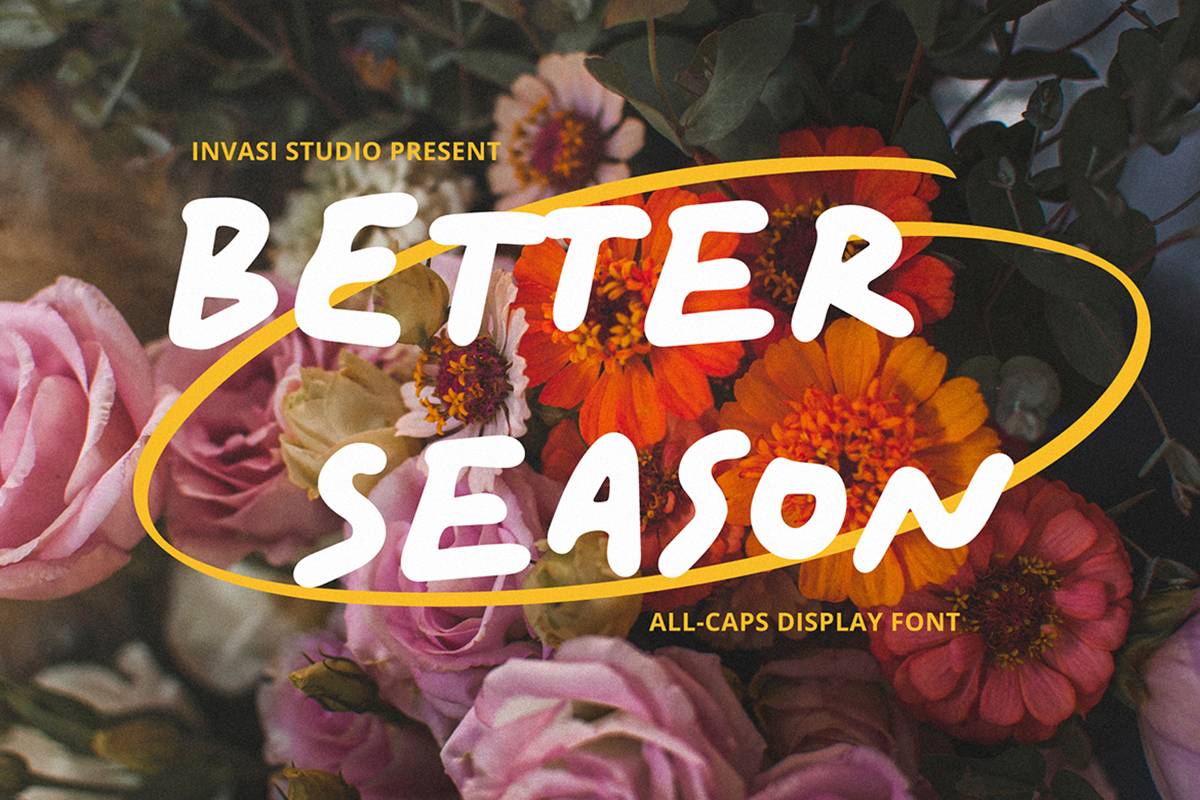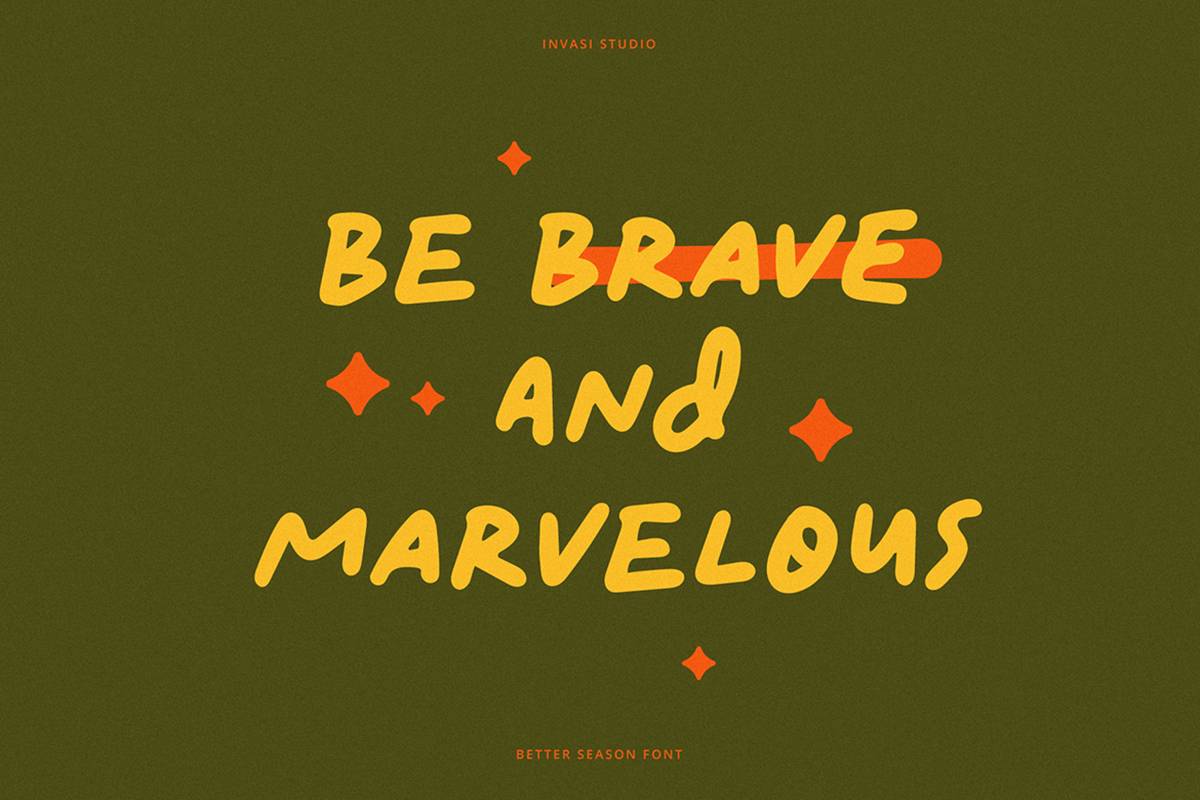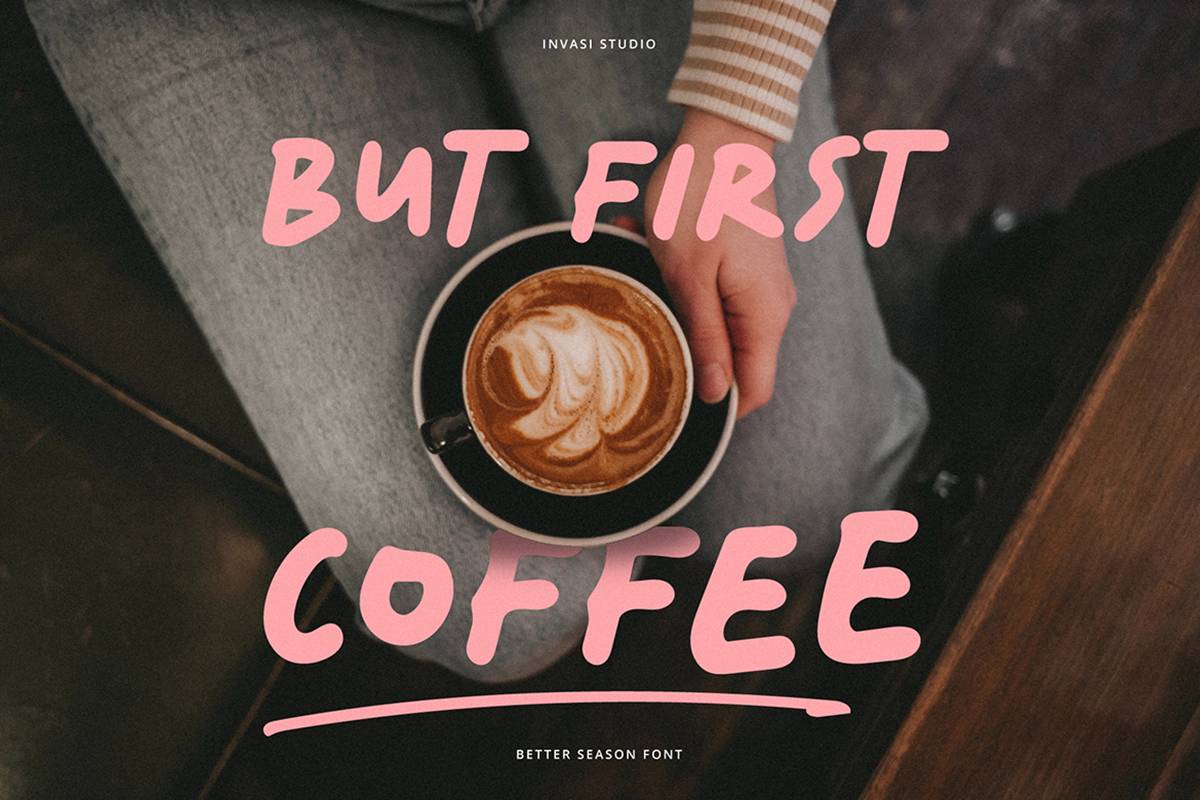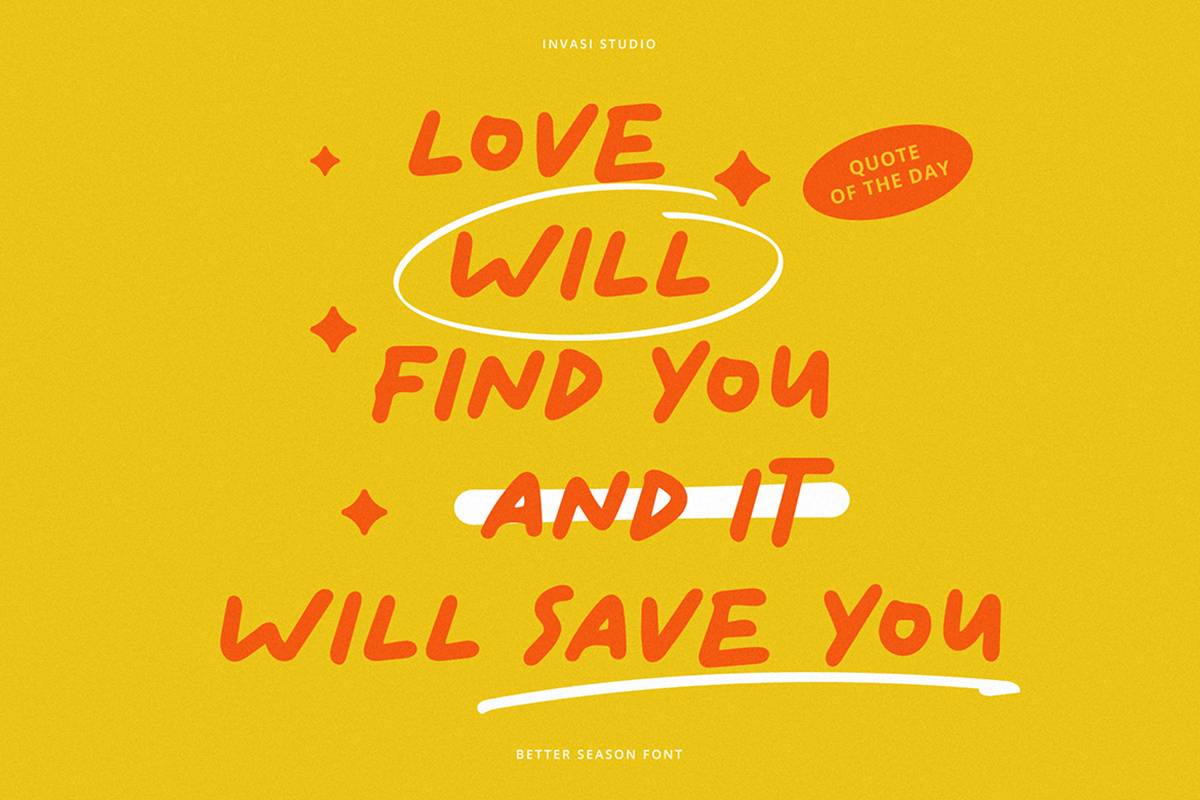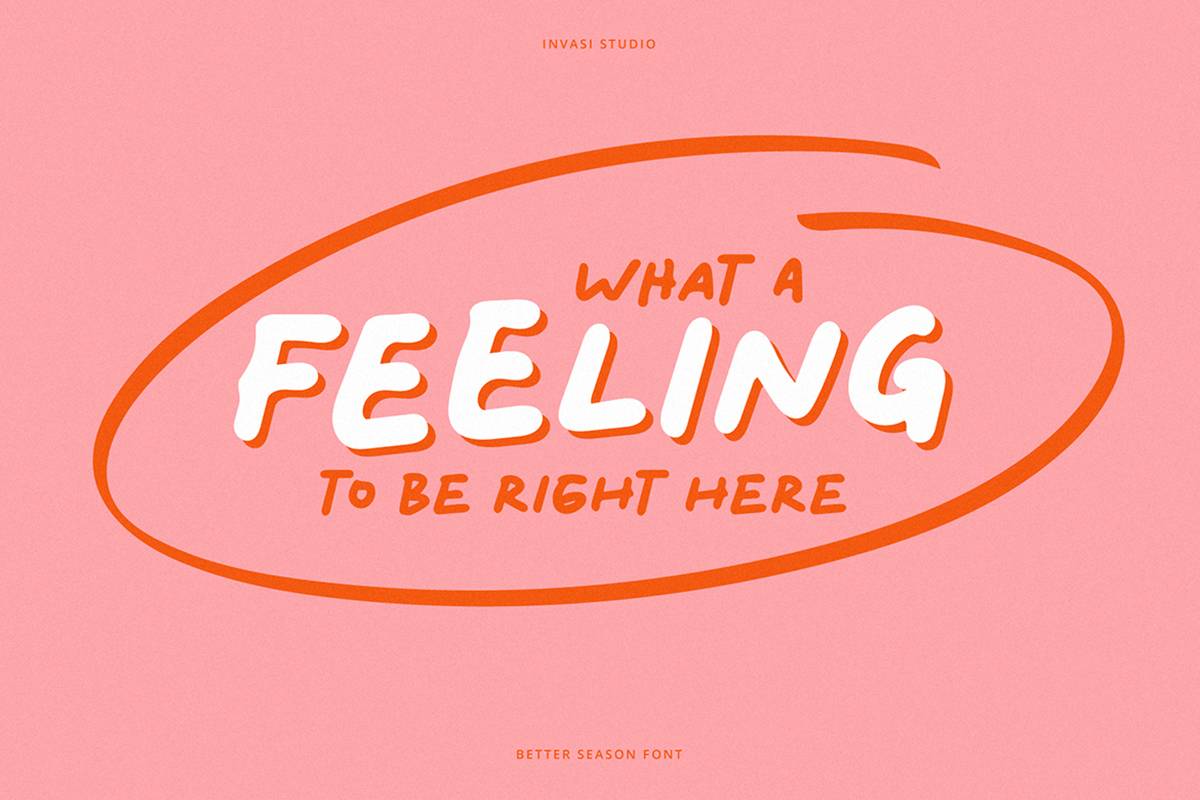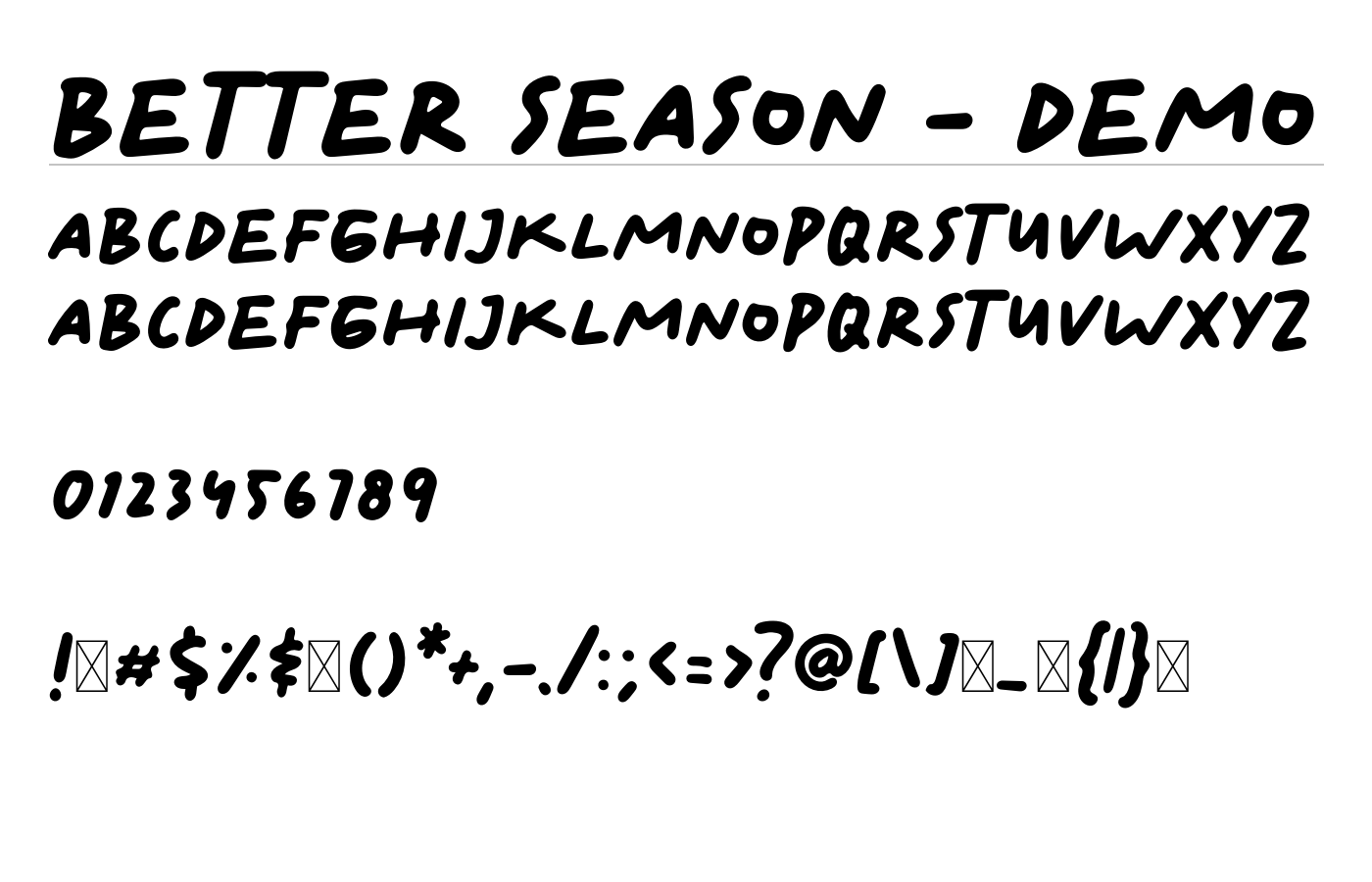
Better Season is a bold, casual handwritten sans serif font with a friendly and energetic vibe. Its rounded, slightly irregular letterforms and moderate x-height give it a playful, approachable feel, making it great for informal branding, fun headlines, and creative projects that want to evoke warmth and personality. This font works especially well in designs that aim to communicate creativity and friendliness, such as social media graphics, packaging, and lifestyle branding.
Better Season Font
About Better Season Font
| Font family | Better Season Font |
| Designer | Gha Arizal |